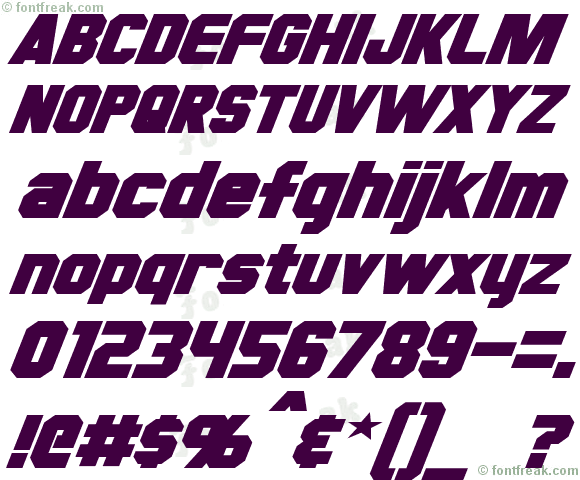
Hauser Oblique
Hauser Oblique is a striking display font designed by Neale Davidson in 2011, falling within the sans-serif category. This typeface showcases a unique oblique style that adds a dynamic flair, making it an excellent choice for various creative projects. The font features bold, angular strokes that create a sense of movement, and its weighty appearance is complemented by a moderate contrast that enhances its visual impact. The characters are well-spaced, ensuring readability while maintaining a distinctive character that stands out in any design context.
Ideal for a range of applications, Hauser Oblique excels in settings that demand attention and creativity. It works beautifully for movie posters, where its energetic style can capture the essence of action and drama. Additionally, this font is perfect for restaurant menus, adding a modern touch that can elevate the dining experience. Graphic designers will find it suitable for branding materials, as it conveys a sense of innovation and forward-thinking. Wedding invitations can also benefit from the elegance of Hauser Oblique, providing a contemporary twist to traditional designs.
What sets Hauser Oblique apart is its ability to blend boldness with elegance, allowing it to fit seamlessly into both modern and classic design frameworks. The combination of its unique style and user-friendly availability makes the Hauser Oblique font free download an opportunity that creatives should not overlook. Embrace the potential of this font to transform your design projects into visually captivating works of art.